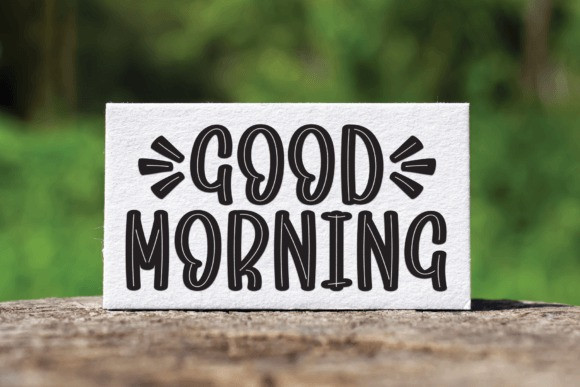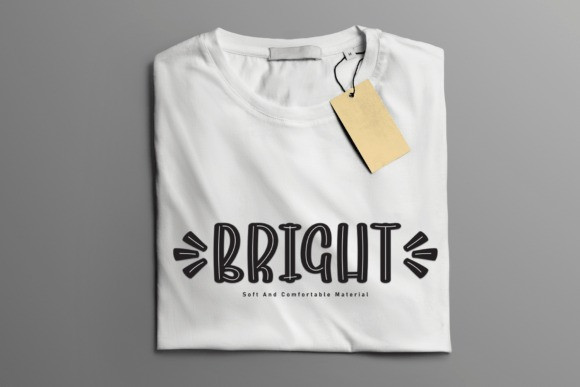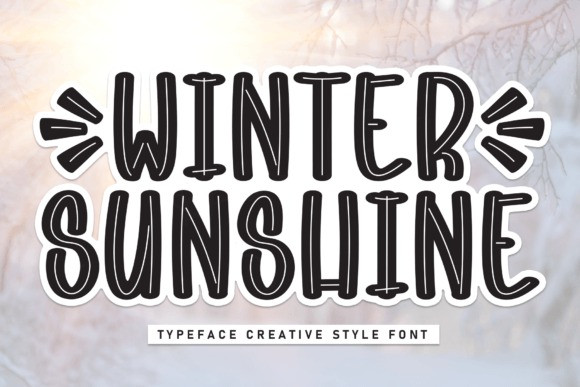
Winter Sunshine Font
Winter Sunshine Font is a whimsical and enchanting creative style font that captures the magic of a winter wonderland. With its graceful curves and playful letterforms, this font exudes a sense of warmth and joy, reminiscent of a sunlit winter day. Perfect for adding a touch of charm to your holiday projects or any design that calls for a dash of creativity, Winter Sunshine brings a unique and festive flair to your text.